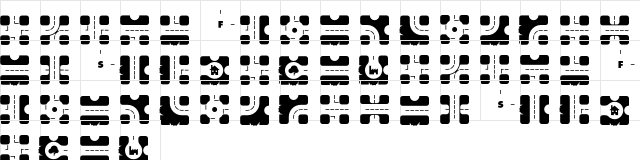
Motorcity Regular
Regular · n Hughes . A Device font  ·
Design Context for Motorcity Typeface
Motorcity is a composed and adaptable typeface that performs quietly and consistently across a wide range of design contexts.